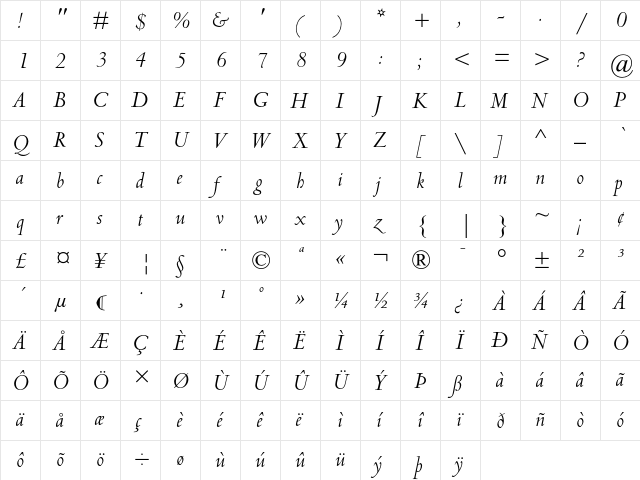
Centaur MT Italic A
Design Context for Centaur MT Typeface
Centaur MT takes a measured approach to typography — its balanced proportions and neutral character make it a reliable workhorse for both digital and print work. Its italic angle brings a sense of urgency and motion to the letterforms.
Pro Tip: Try Centaur MT for annotation and caption copy alongside an upright companion — the contrast in angle creates a dynamic but ordered typographic system.